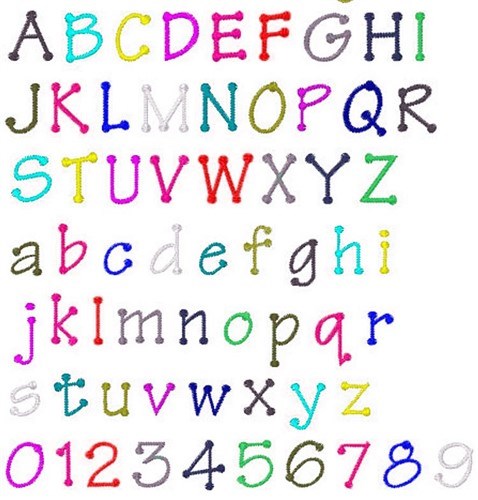
Unicorn Creatives is happy to present Tinker Toy Embrilliance machine embroidery font which has Colorful building block-inspired embroidery font is ideal for children's projects like quilt labels and garments. Available in BX font and Embrilliance format. included. If you would like to view more embroidery fonts and alphabets please search our embroidery fonts page.